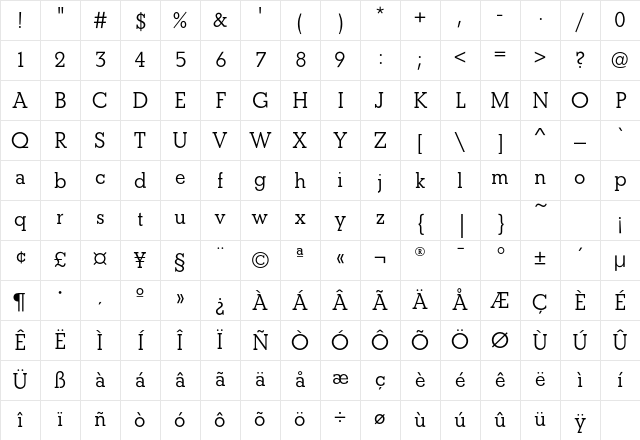
BetonEF DemiBold
Style: DemiBold
BetonEF Family
BetonEF DemiBold
Complete BetonEF DemiBold glyph index. Displaying only characters natively supported by BetonEF DemiBold font.
Design Context for BetonEF
BetonEF is a composed and adaptable typeface that performs quietly and consistently across a wide range of design contexts. Its bold stroke weight gives it real presence on the page.